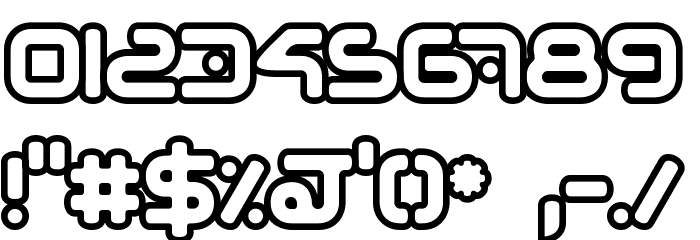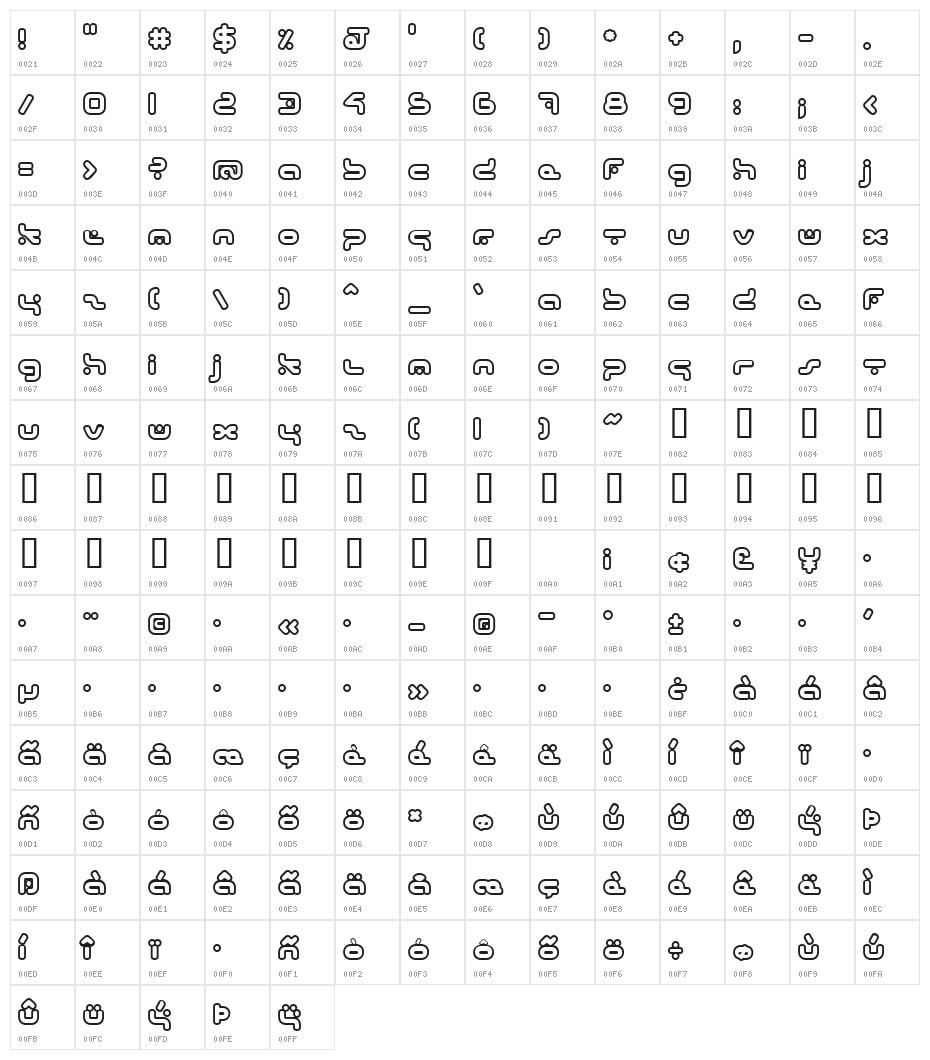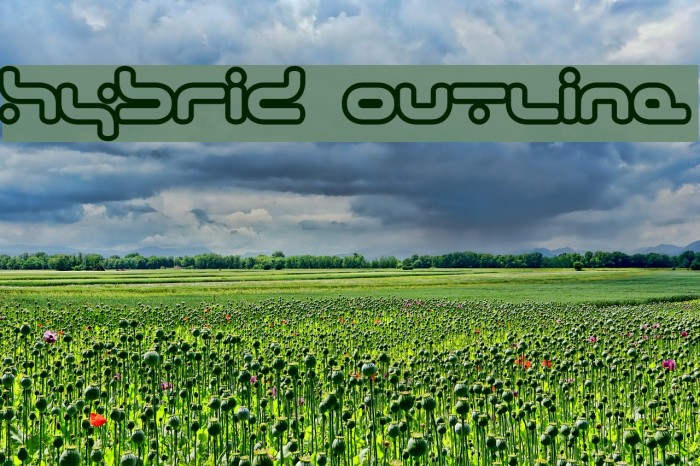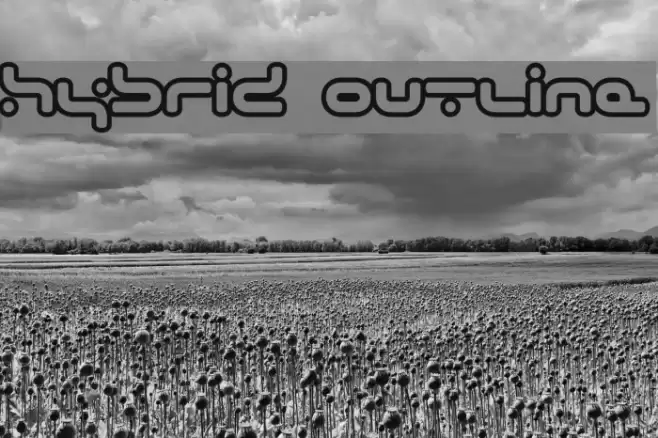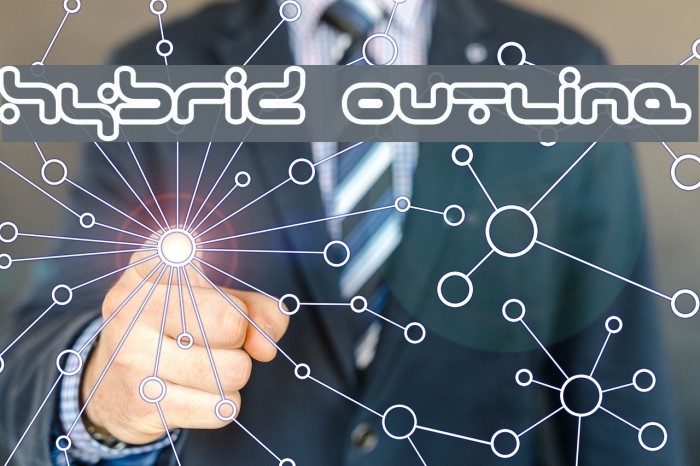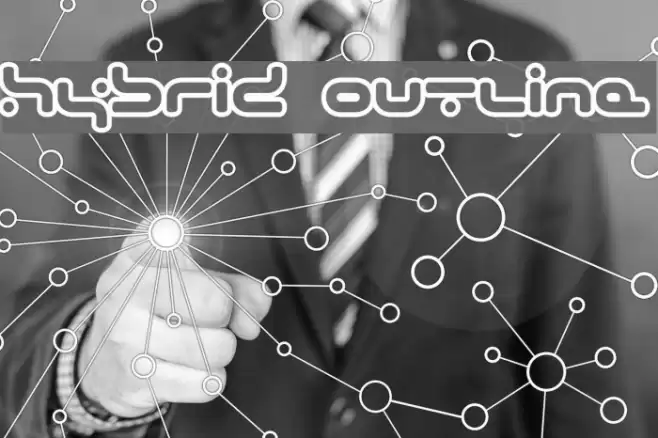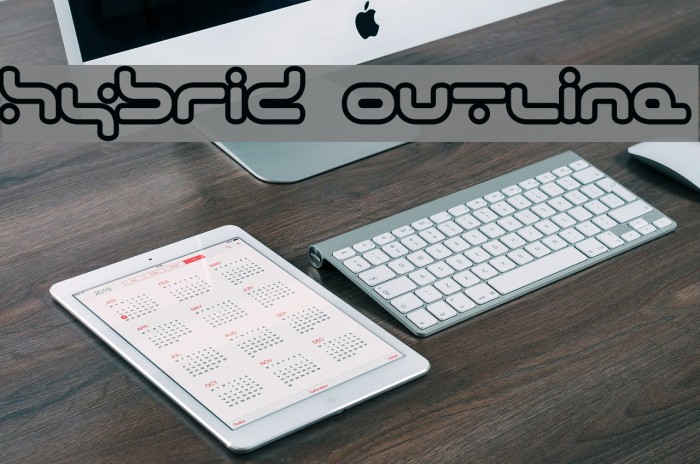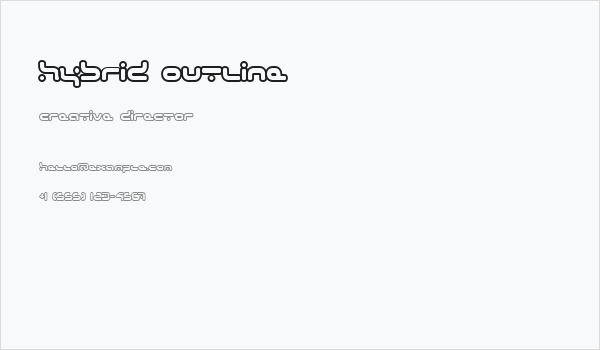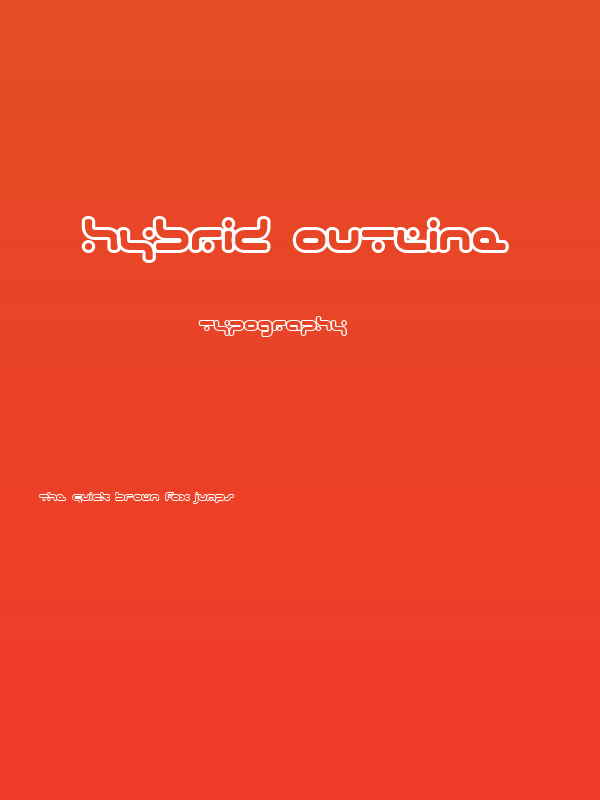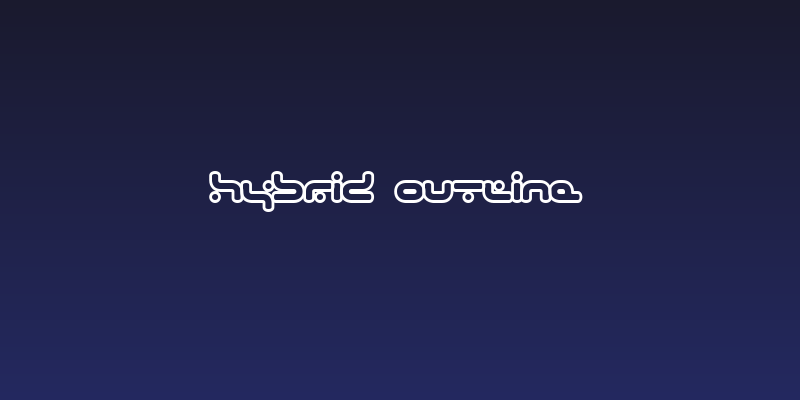
hybrid Outline Font
hybrid Outline Description
This font features a unique, futuristic design with bold, rounded outlines that create a striking visual impact. The characters are formed with a continuous line that loops and curves, giving a sense of fluidity and motion. The uppercase and lowercase letters share a consistent style, maintaining the same width and height proportions. Numbers and special characters are designed to match the overall aesthetic, ensuring a cohesive look across all elements. The font's outline style adds a layer of depth, making it suitable for eye-catching designs.
| Proposed Projects | Ideal for sci-fi themed projects, modern branding, digital art, and innovative product packaging. |